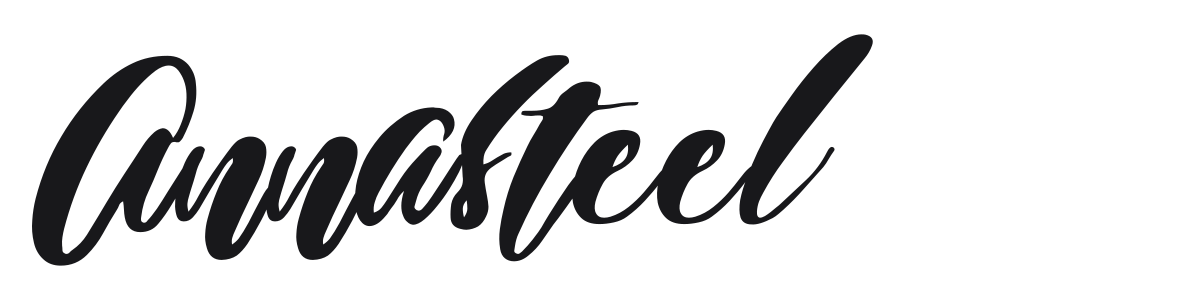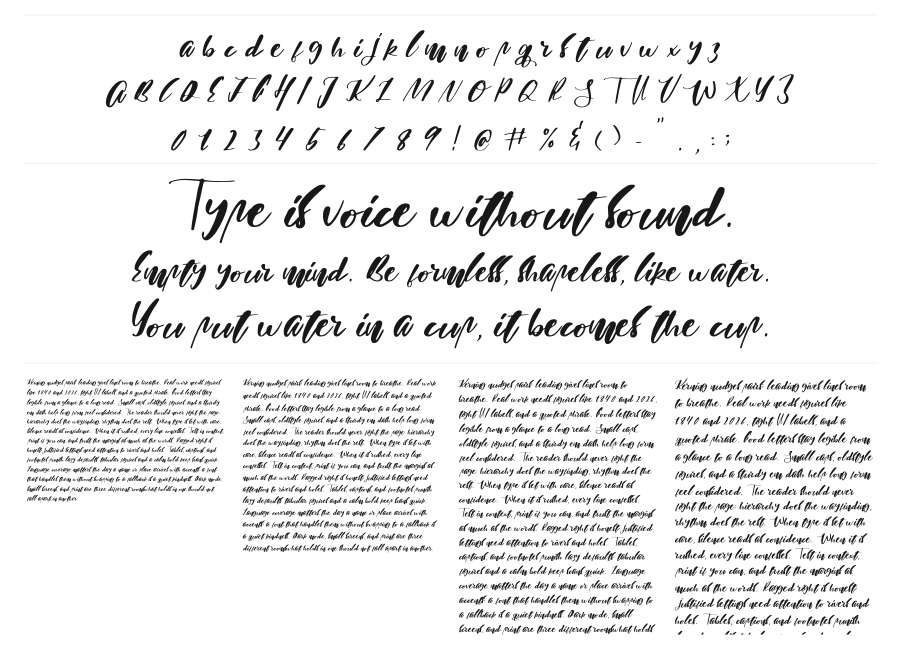
Annasteel
Annasteel is a bold contemporary brush script with dramatic stroke contrast and a loose, gestural energy. The thick-to-thin transitions and sweeping interlocking loops give it a confident handcrafted feel without looking stiff or overly formal. It works well at large sizes for logos, packaging, and social media graphics.